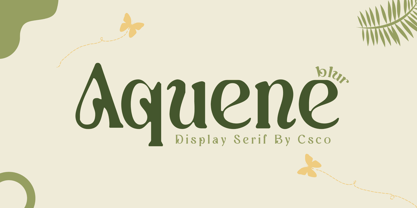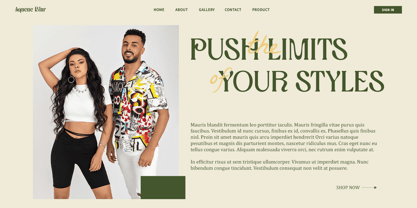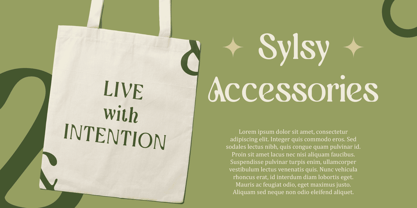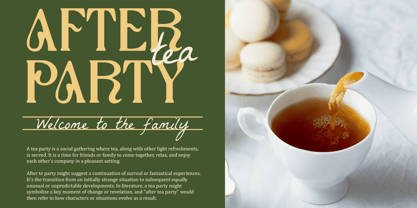
Aquene Blur
by Craft Supply Co
The Aquene Blur Font Family was designed by Trio Nazzar Saputra, Wahyu Hadi Yuana and published by Craft Supply Co. Aquene Blur contains 2 styles and family package options. More about this family
Aquene Blur – Art Nouveau Font: Elegant Fusion of Classic Beauty and Modern Softness
Art Nouveau Serif with Blur Effect
Aquene Blur is a sophisticated serif font that seamlessly blends the elegance of early 20th-century Art Nouveau with a contemporary blur effect. This unique typeface is characterized by its smooth curves and ornate details, drawing inspiration from the decorative arts to create a design that is both graceful and artistically rich.
Graceful and Ornate Design
Embrace the timeless beauty of Art Nouveau with Aquene Blur. Its intricate, flowing lines and decorative elements capture the essence of classic elegance while maintaining a sense of refined artistry. The font’s elegant design makes it a standout choice for high-end and visually captivating projects.
Modern Blur Effect for Contemporary Appeal
The added blur effect introduces a soft, contemporary nuance that enhances the font’s visual depth and modern appeal. This blend of traditional artistry and modern refinement creates a unique and captivating look, perfect for projects that demand a touch of both classic beauty and contemporary sophistication.
Ideal for Elegant and Luxury Projects
Aquene Blur is ideal for a variety of elegant applications, including formal invitations, luxury branding, and editorial design. Its ability to balance classic elegance with modern softness makes it an excellent choice for any project where a sophisticated and visually engaging touch is highly valued.
Designers: Trio Nazzar Saputra, Wahyu Hadi Yuana
Foundry: Craft Supply Co